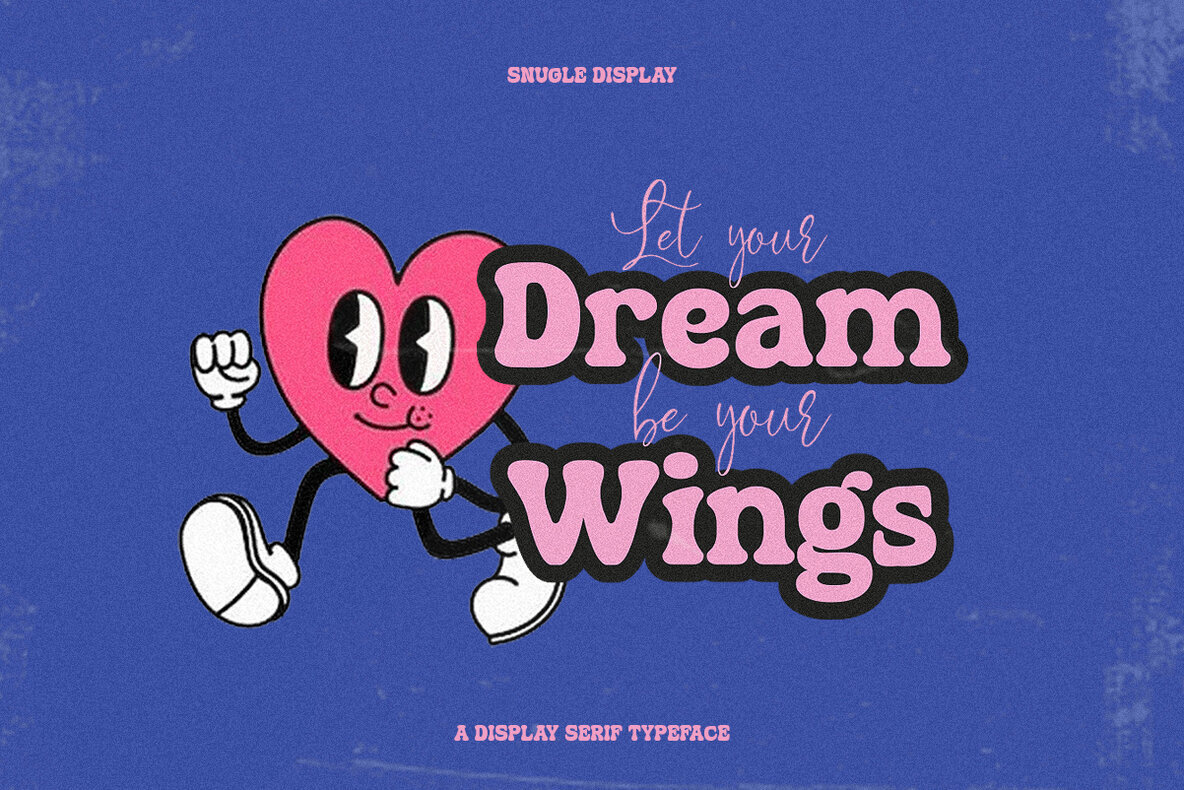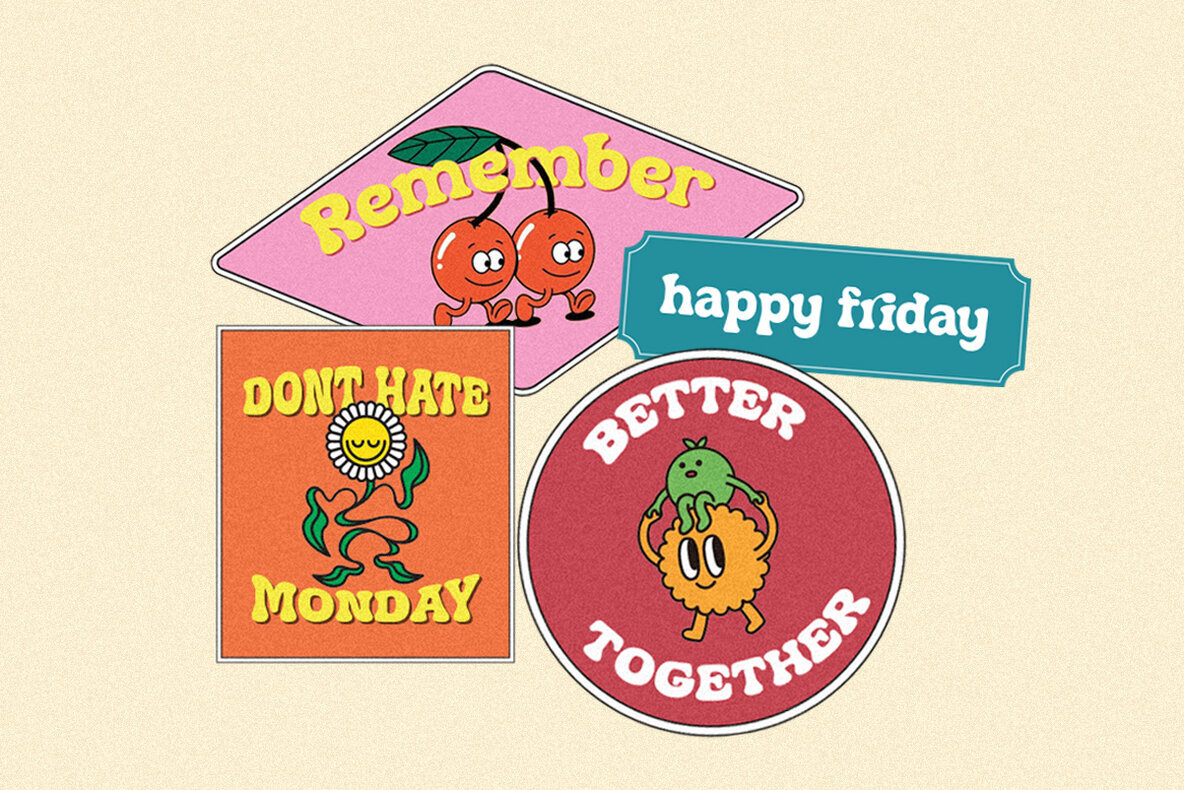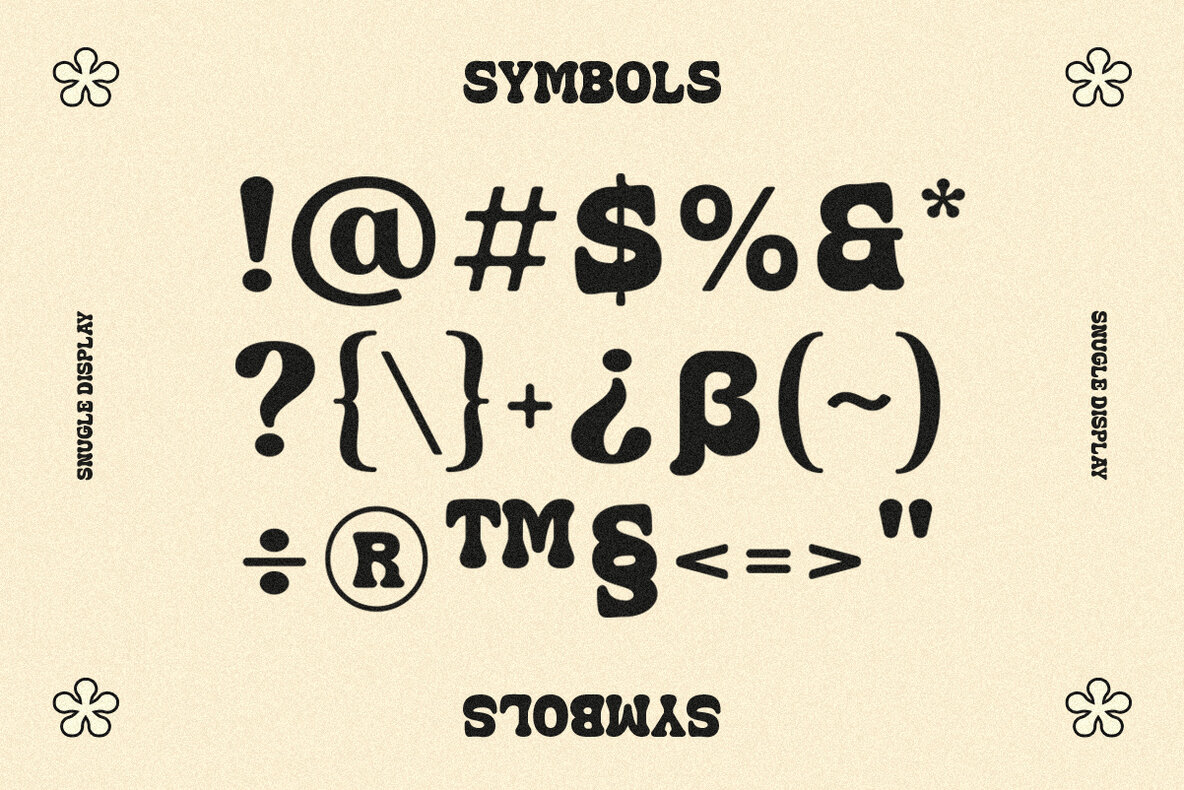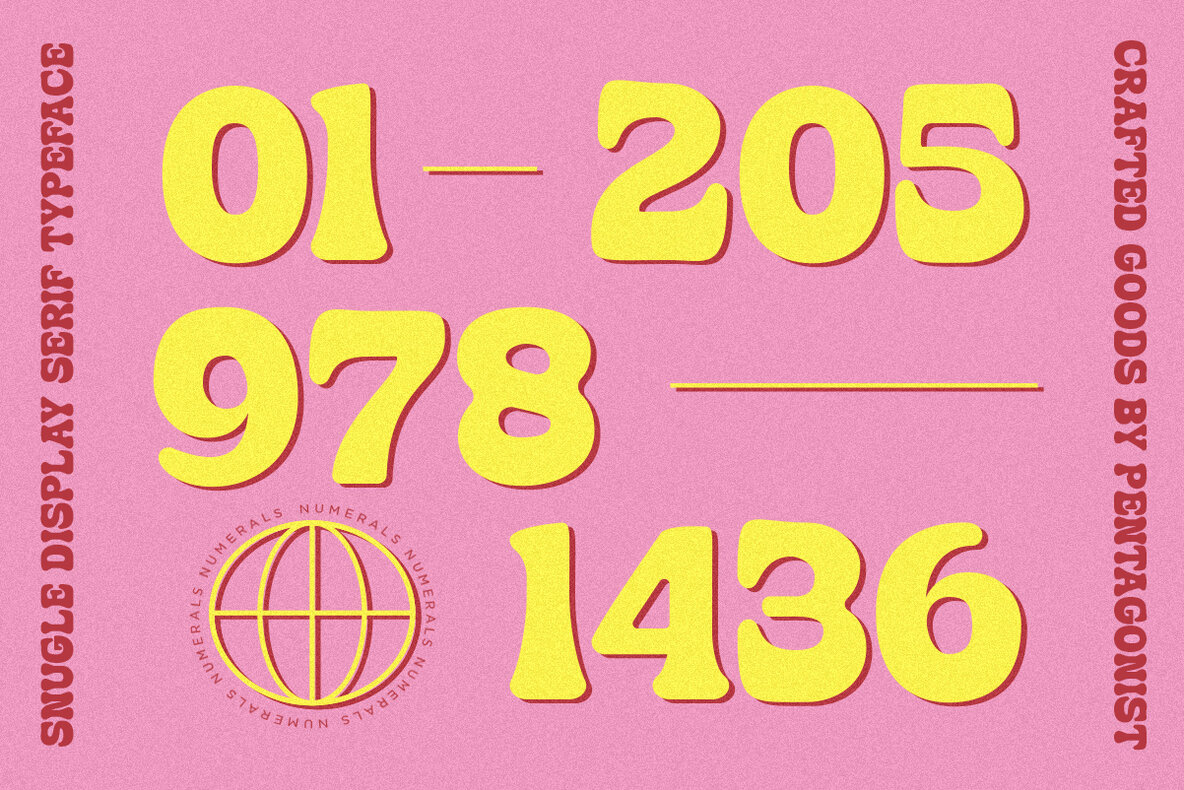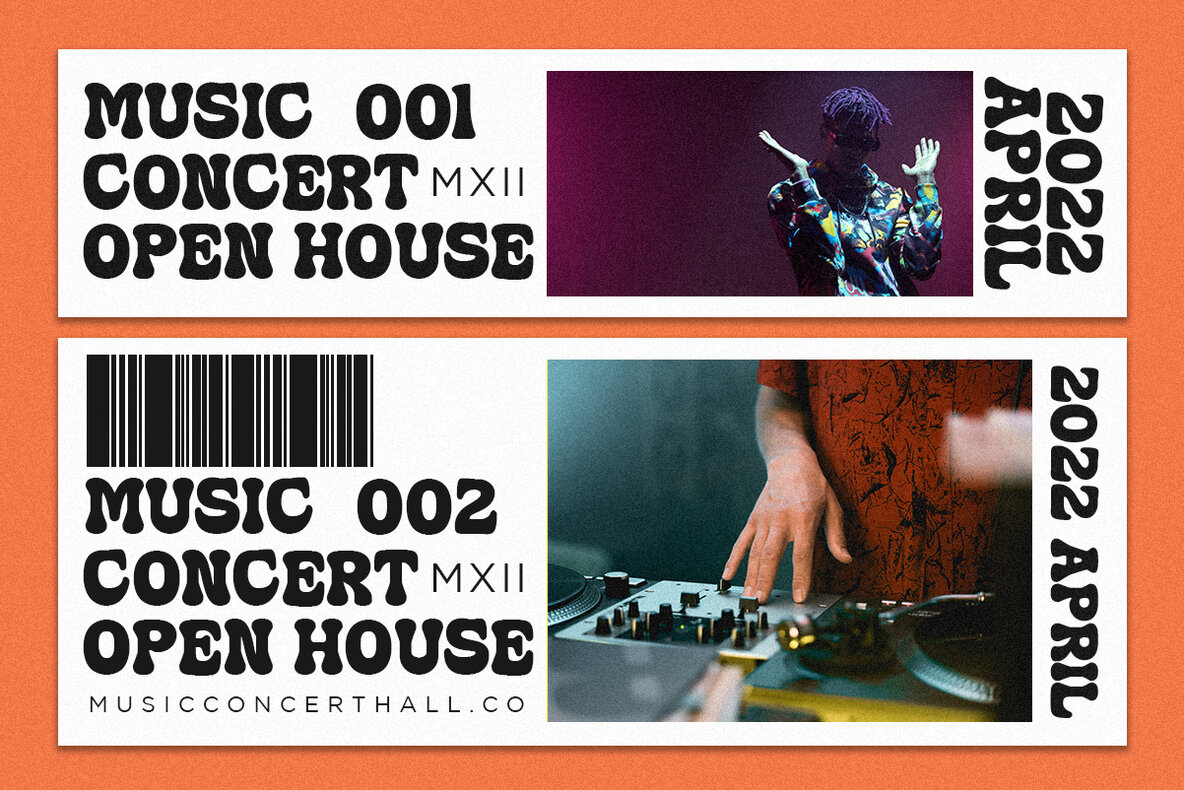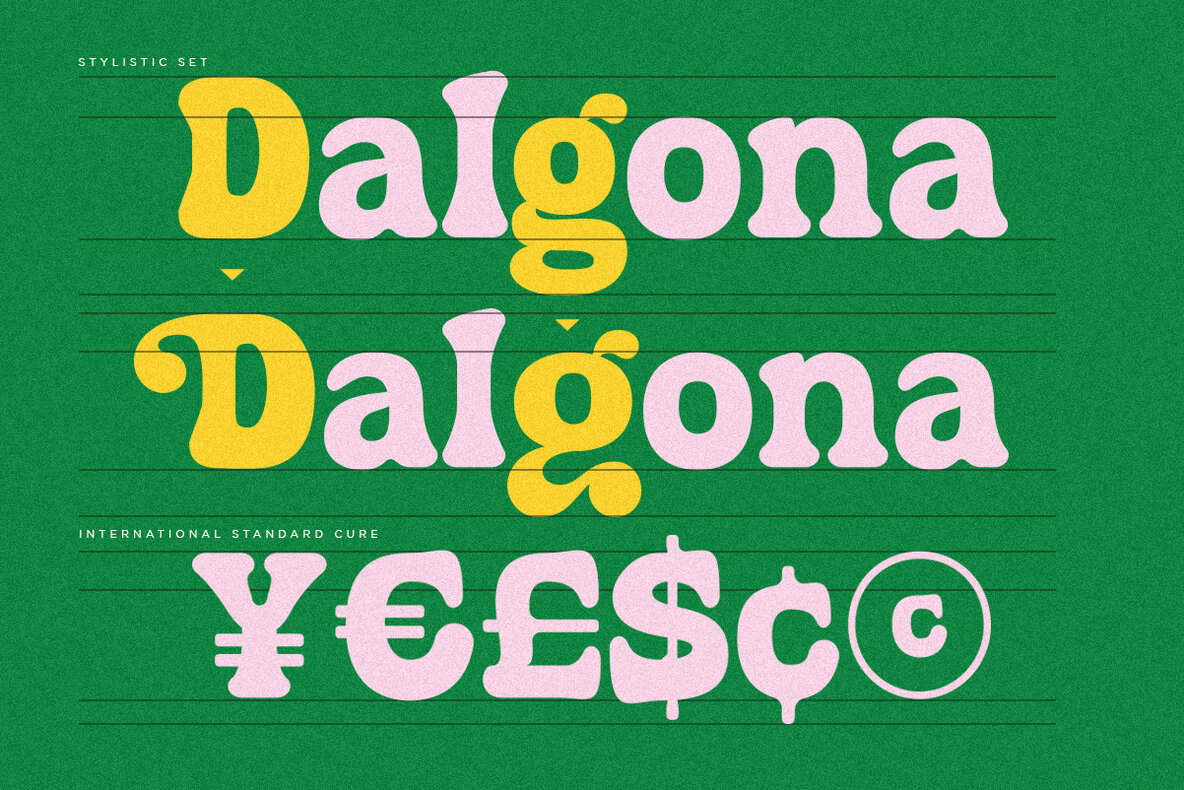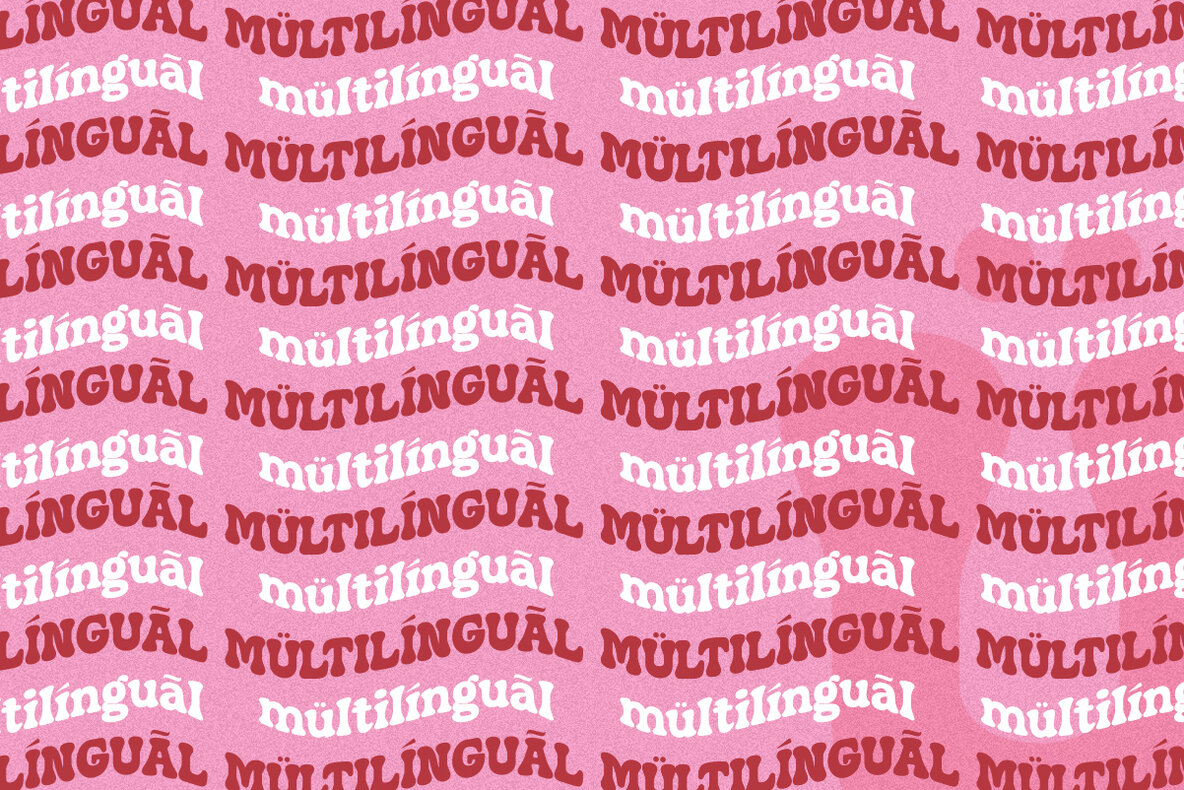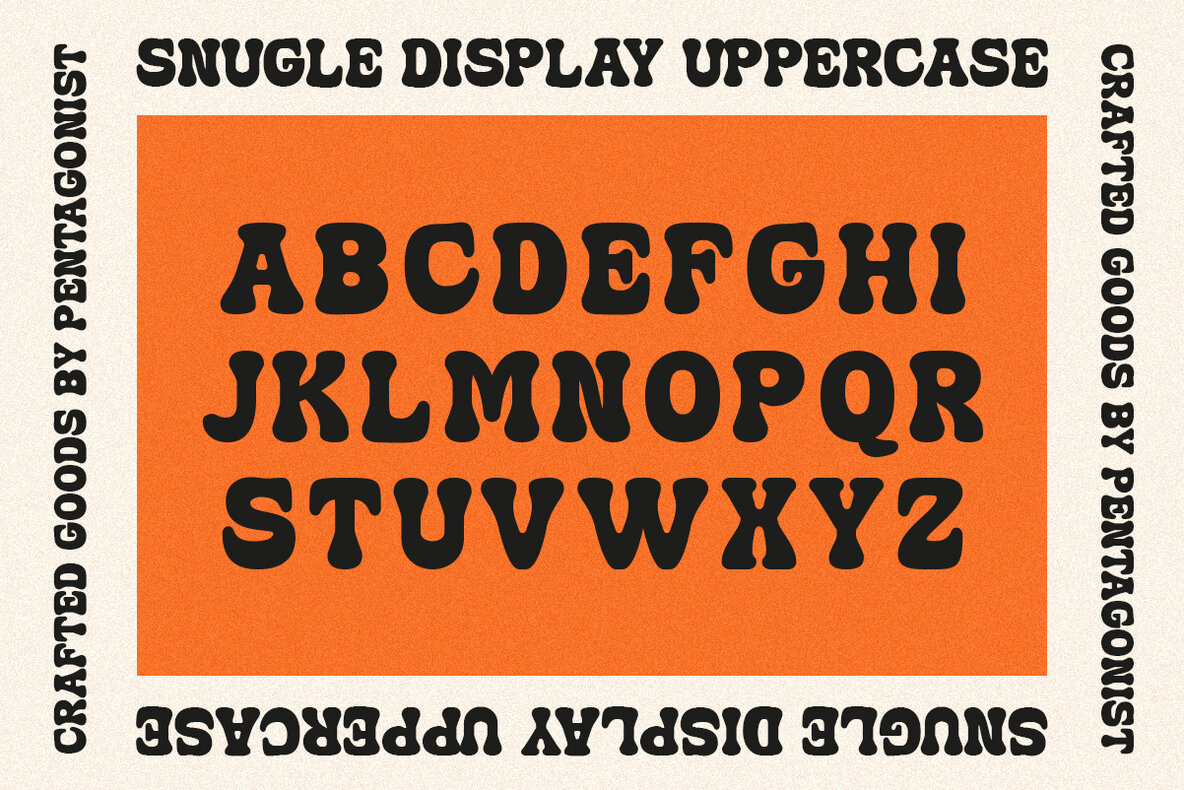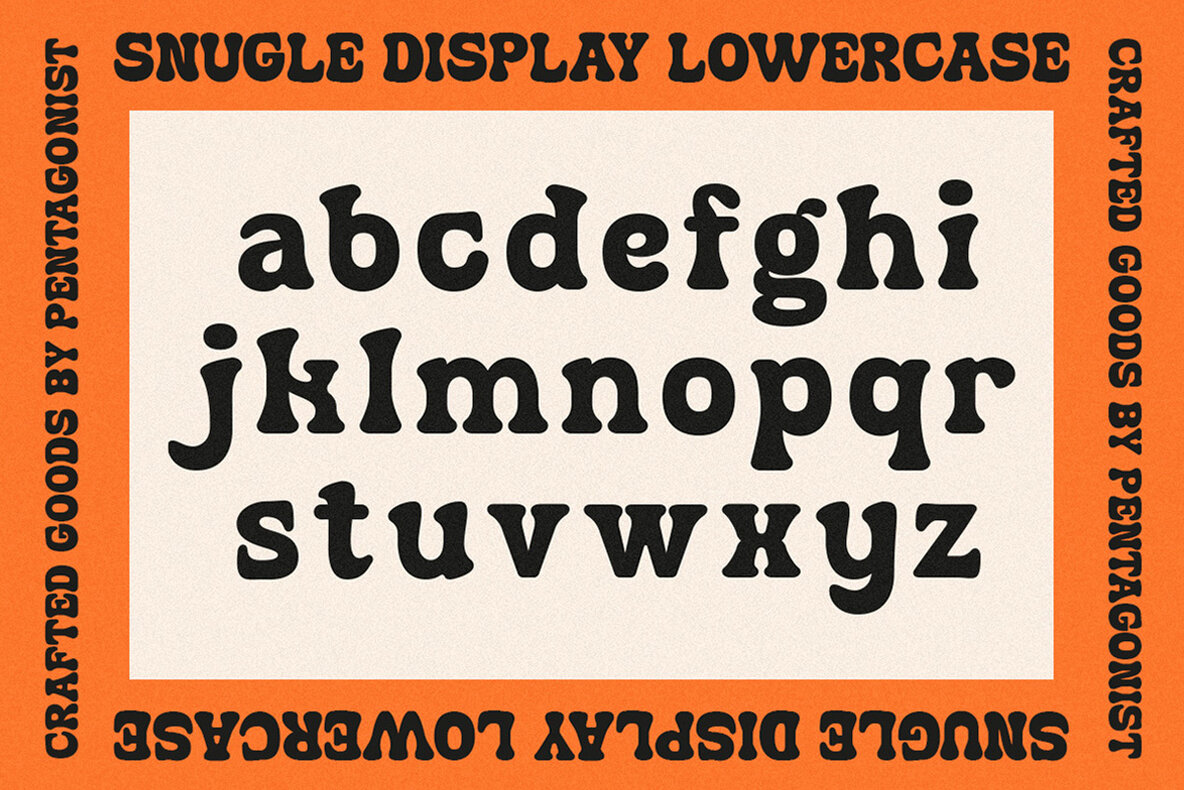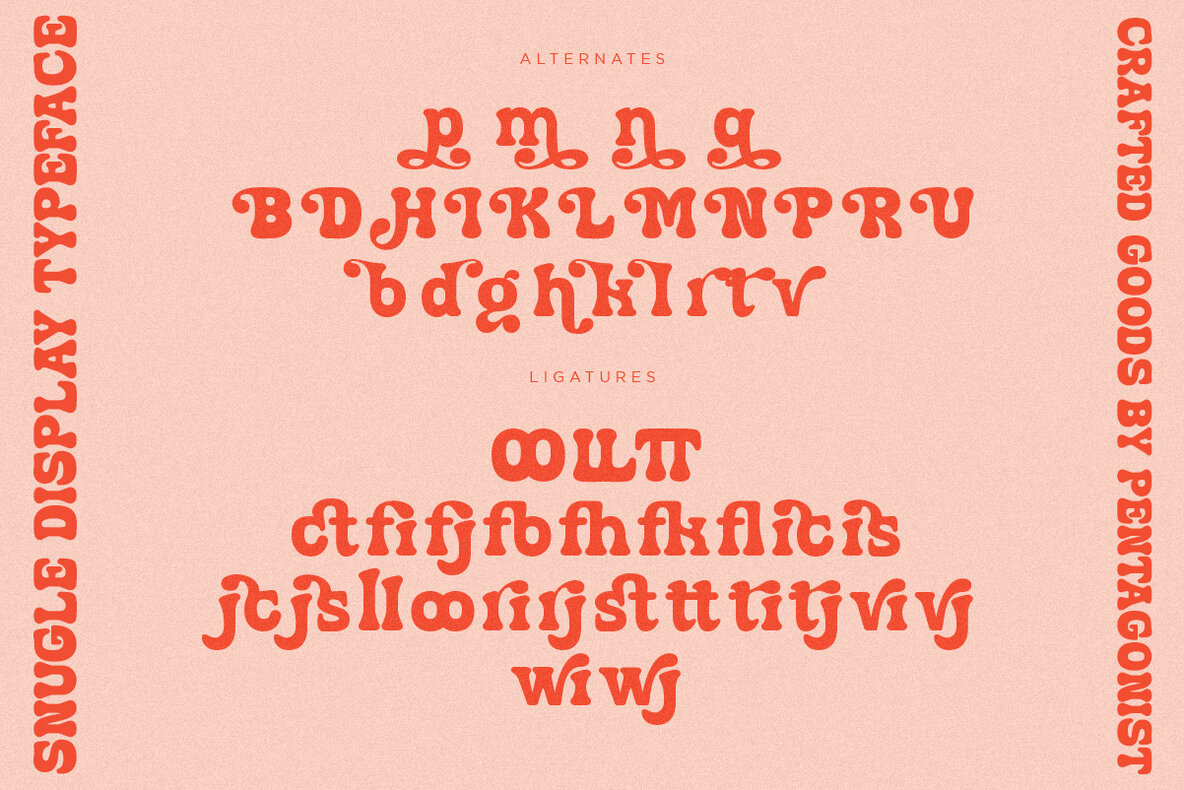
Snugle Font
Snugle Regular
Snugle offers a nostalgic nod to the past, merging retro and vintage aesthetics into a stylish display font perfect for various design projects. Ideal for headings, logos, and branding, Snugle brings a touch of elegance and character to modern creative endeavors. Whether crafting a brand's visual identity or designing an eye-catching poster, Snugle provides a unique and stylish typographic solution. While perfectly suited for various digital applications, it's crucial to adhere to the specified licensing terms for compliance and proper usage.Snugle: A Retro-Inspired Fancy Display Font